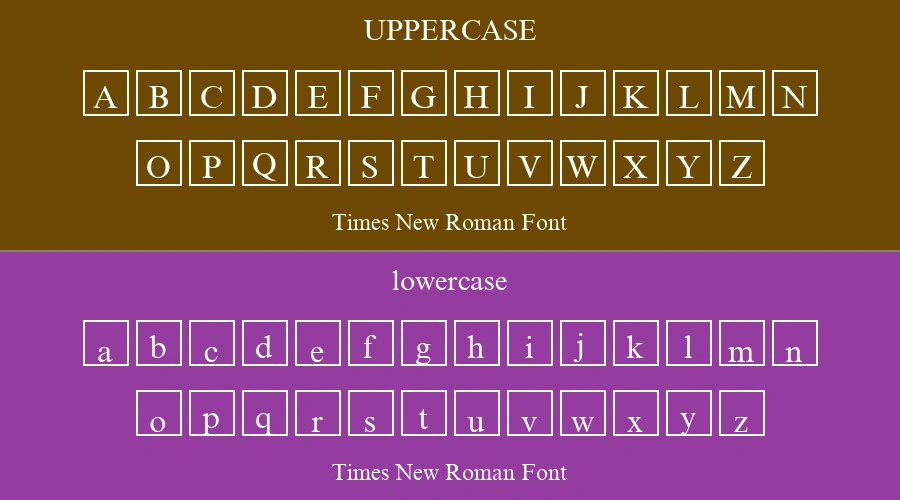
Times New Roman Font
About Times New Roman Font
The Times New Roman Font is a popular typeface all around the world. It was invented by two famous graphic designers named Stanley Morison and ?Victor Lardent. This font belongs to the old serif texture family and its release date is 1992 through Monotype Imaging. The design of this typeface is based on the ?Plantin (typeface) with a neat and good-looking texture look.
This font has an online generator tool, where you can easily change your straightforward texture into stylish and modern shapes. Its copy-and-paste function is also available. It is available in both uppercase and lowercase letters. This font also contains various types of weights and styles such as bold, italic, regular, and many more.
After it was published in the font world, it gained popularity in a very short time, due to its clean and easy-to-read features. The pairing quality of this typeface is amazing and can be paired with the sans caps font and make modern purposes.